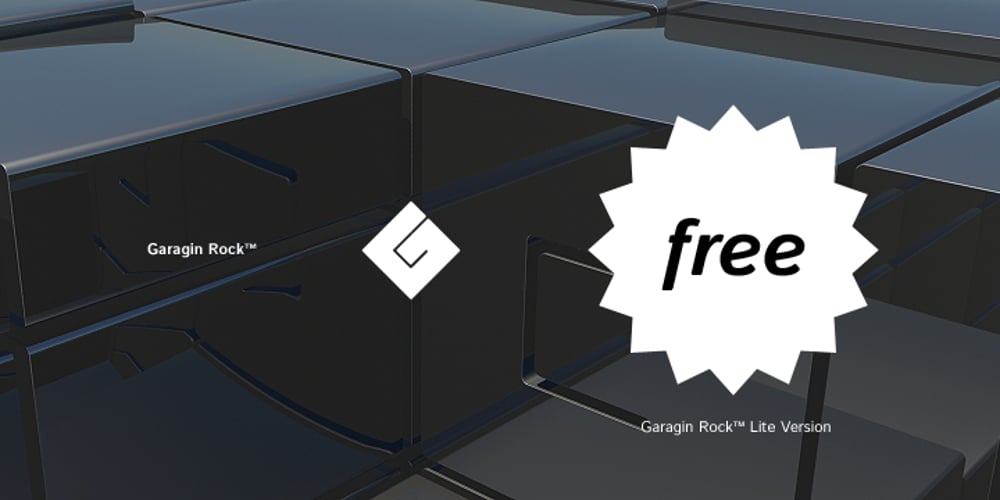
Garagin Rock
Garagin Rock font
Garagin Rock Font Family was designed by Rodrigo de Carvalho and published by Rodrigo de Carvalho. Garagin Rock contains 2 styles and family package options. Garagin Rock was developed from the studies for the title of a publication called Garagin in 1999. Its use is indicated for the titles on posters and stuff like that, but feel free to dare. Anyway, it really was not made ​​for small sizes and is not a WebFont obviously, but again, feel free to dare. May you notice something odd in the baseline position, this is to keep leading with a defined size. But of course you can change it in any editing program. Being a heavy typeface, use in moderation… or not! Garagin Rock Lite is a version with a limited set of characters.